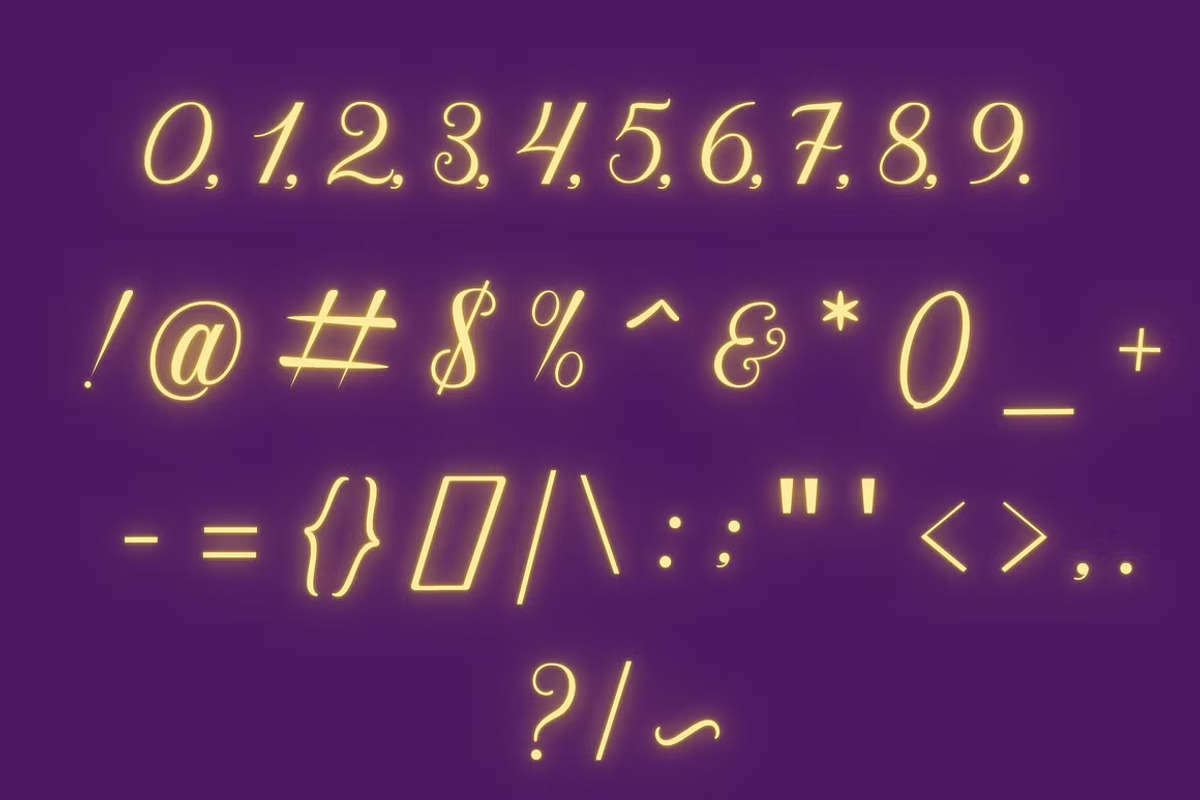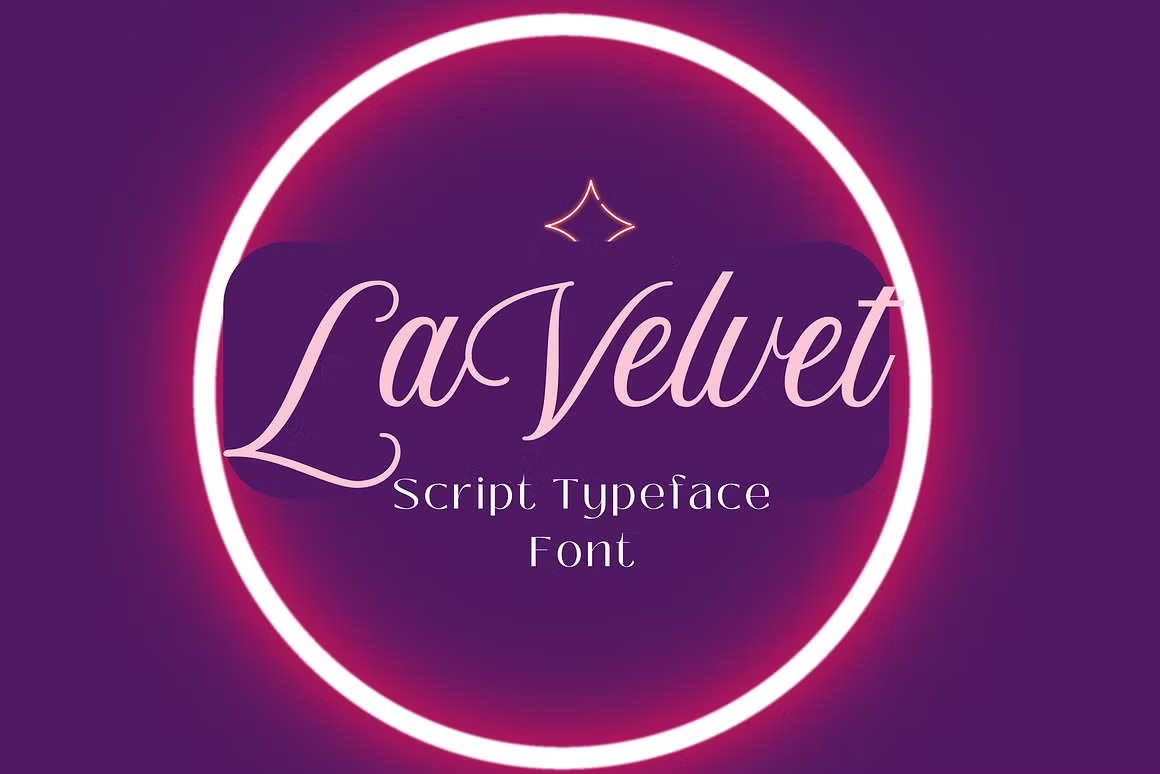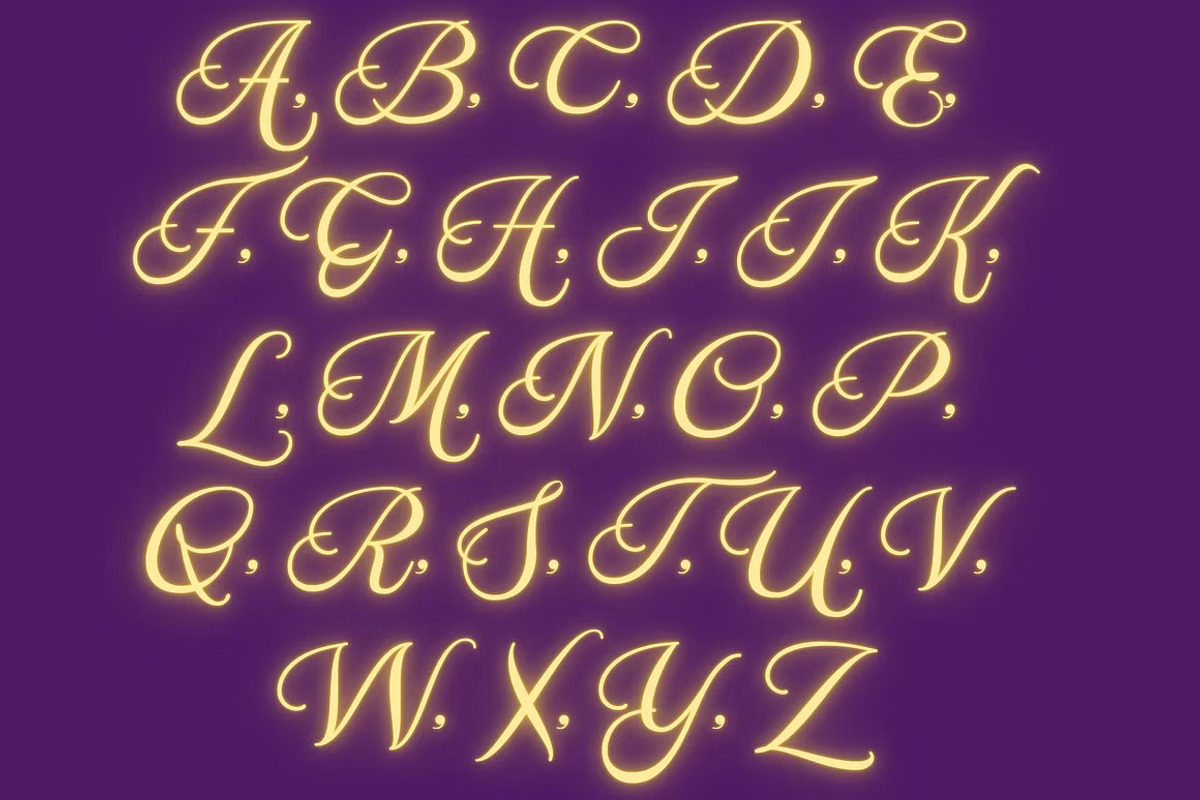
LaVelvet Elegant Script Font
Introducing LaVelvet Script Typeface: The Perfect Blend of Elegance and Creativity for Your Design Projects!
We are absolutely thrilled to present the LaVelvet Script Typeface, a beautifully crafted font designed to enhance and complement the visual appeal of any project you undertake.
Complete Character Set: A-Z, ensuring comprehensive typography options Numerals & Punctuations: Adheres to OpenType Standard guidelines for professional versatility Accents Support: Multilingual characters for global reach and inclusivity Stylistic Alternates: Add unique flair and elegance to your designs The LaVelvet Script Typeface is the perfect choice for projects that demand a touch of sophistication, whether it’s branding, invitations, social media graphics, or editorial design. Its script style brings a hand-crafted, elegant feel to your work, making it stand out with both creativity and charm.
Perfect for both professional use and creative projects, LaVelvet offers the flexibility you need to elevate your designs and captivate your audience. Every character is carefully designed to maintain elegance, readability, and visual appeal across all applications.
Transform your projects with the timeless elegance of LaVelvet Script Typeface – your ultimate tool for adding flair and sophistication to your creative work.